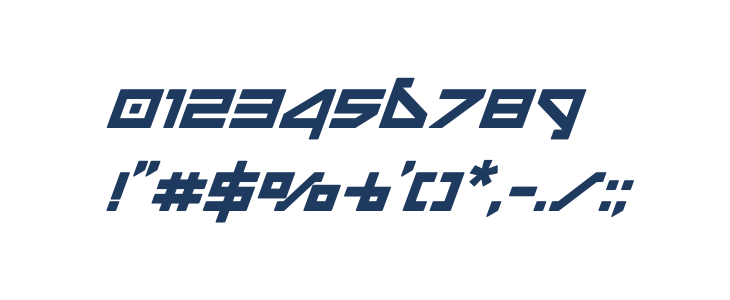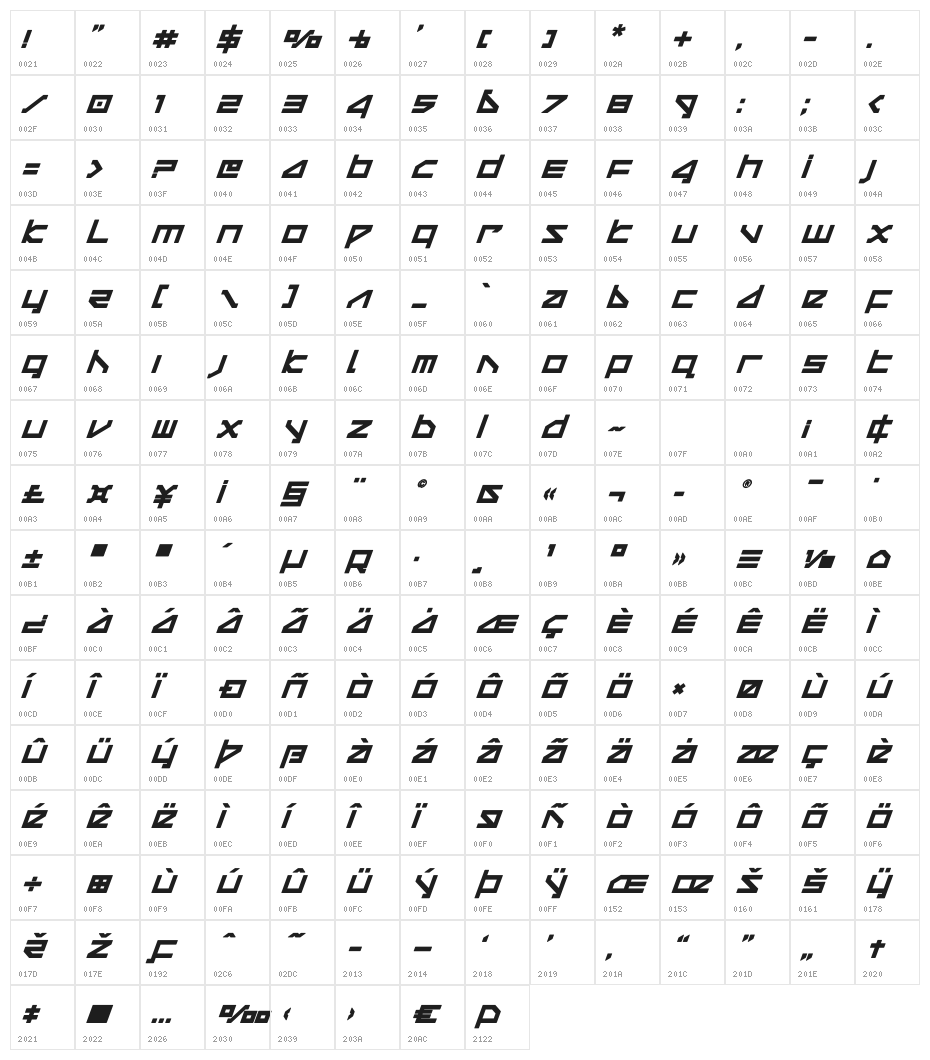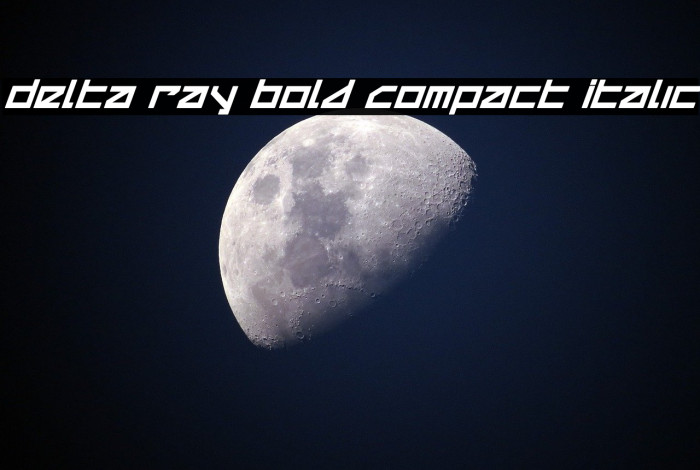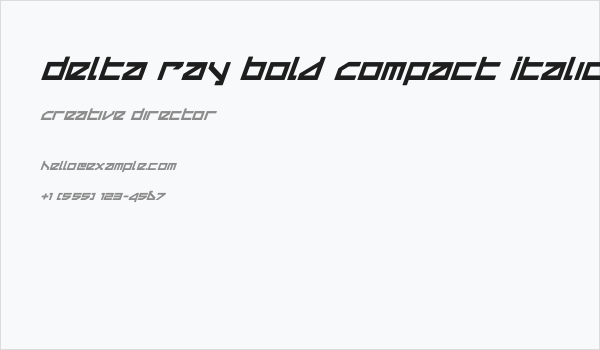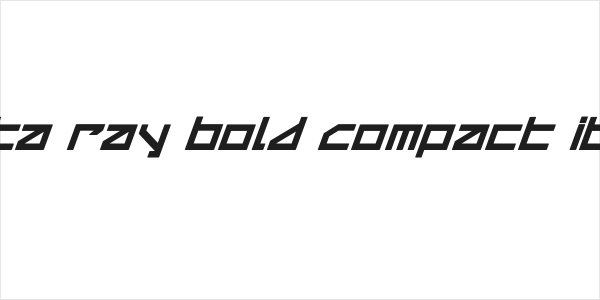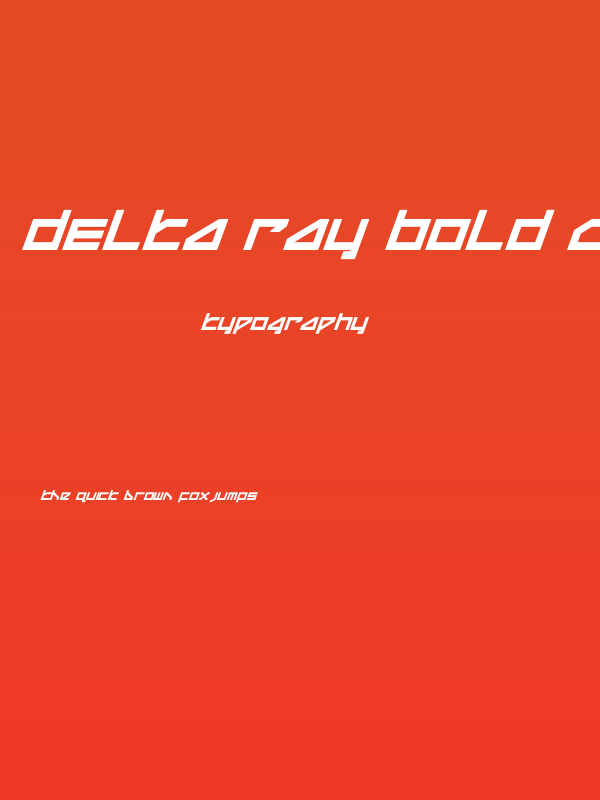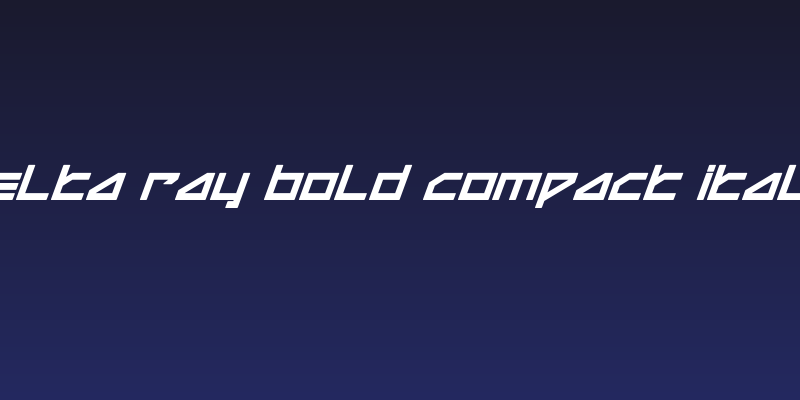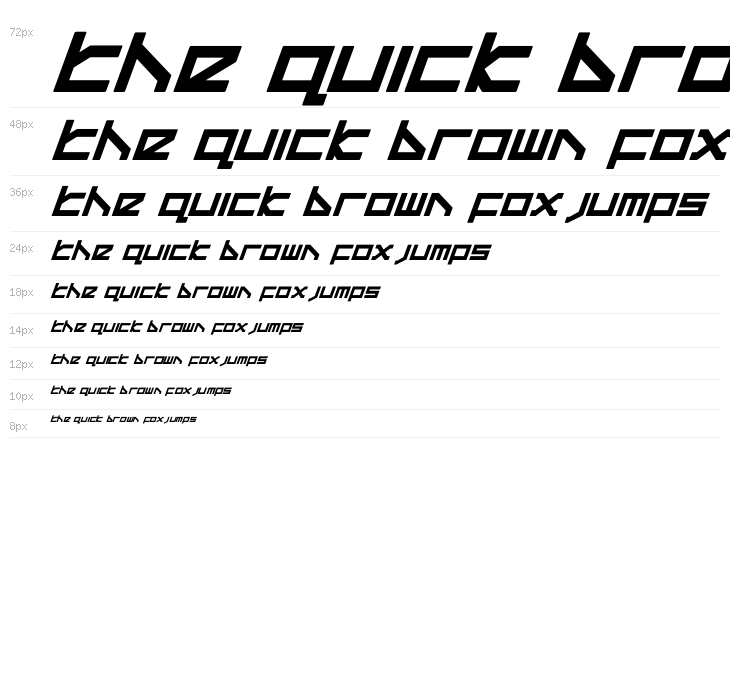
Delta Ray Bold Compact Italic Font
Delta Ray Bold Compact Italic Description
This font features a bold and compact design with a distinct italic slant, giving it a dynamic and futuristic appearance. The characters are angular and geometric, with sharp edges and a consistent stroke width that conveys a sense of speed and modernity. The uppercase and lowercase letters maintain a uniform style, while the numerals and special characters complement the overall aesthetic. The font's compact nature makes it suitable for tight spaces, while its boldness ensures readability and impact.